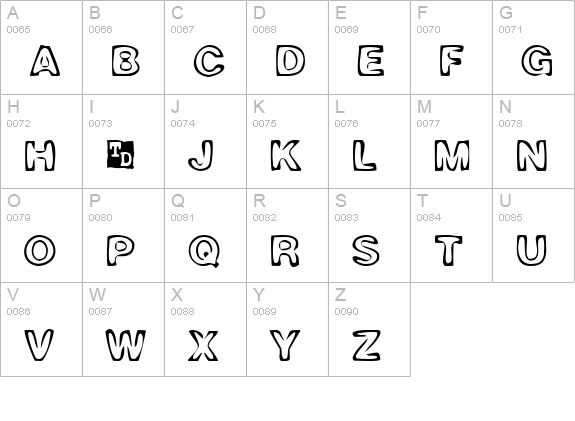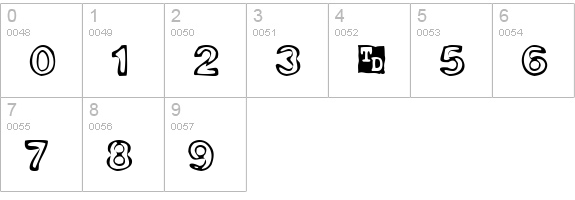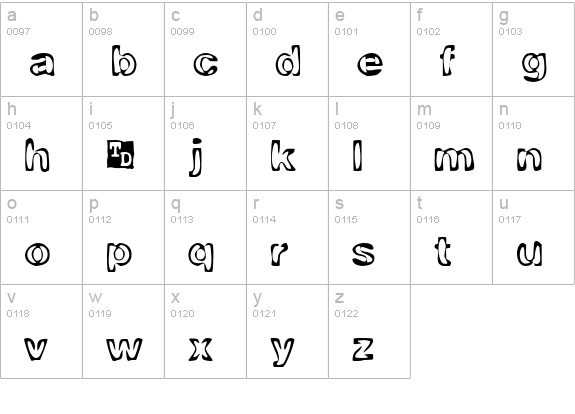
Introducing BurnOut Trial Version font - a dynamic and eye-catching typeface designed to make a statement. This bold and modern font is perfect for creating striking headlines, posters, and branding materials. The BurnOut Trial Version font features a unique combination of sharp edges and smooth curves, giving it a distinct and edgy look. Best of all, the BurnOut Trial Version font is available for free download at FontsMarket.com. Whether you're a designer looking to add a touch of flair to your projects or a business owner in need of a standout logo, this font is sure to impress. Don't miss out on the opportunity to enhance your designs with this versatile and stylish typeface. Download the BurnOut Trial Version font today and unleash your creativity!